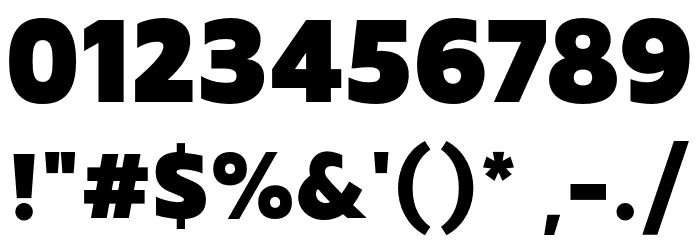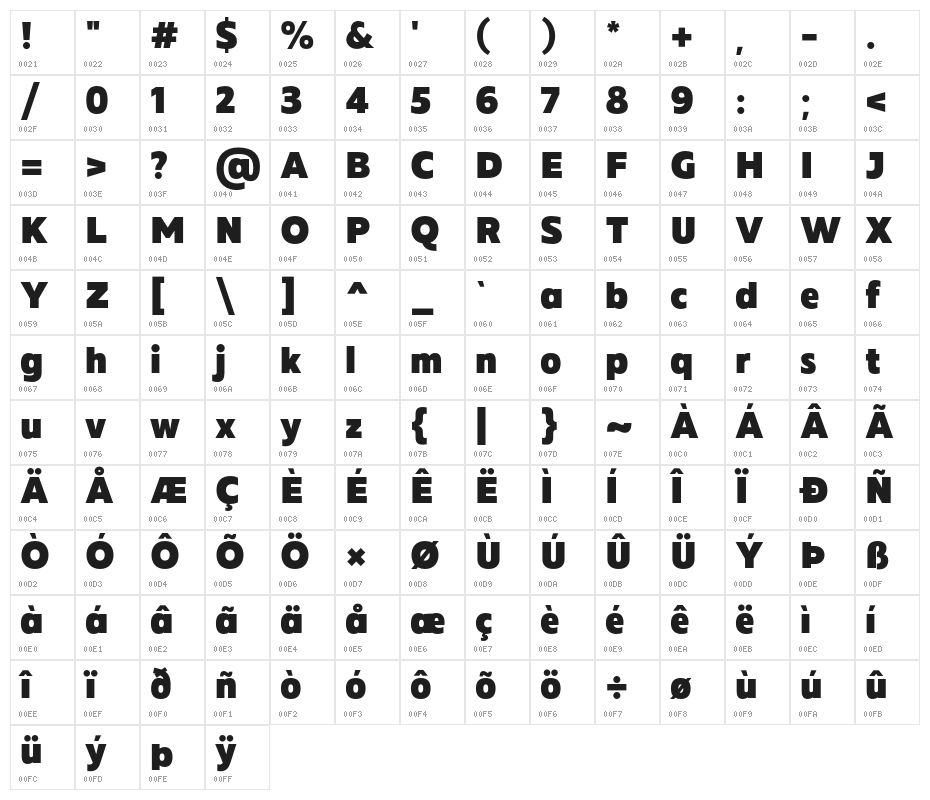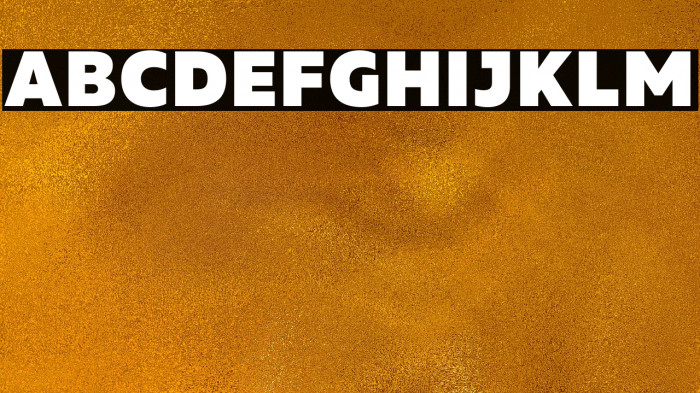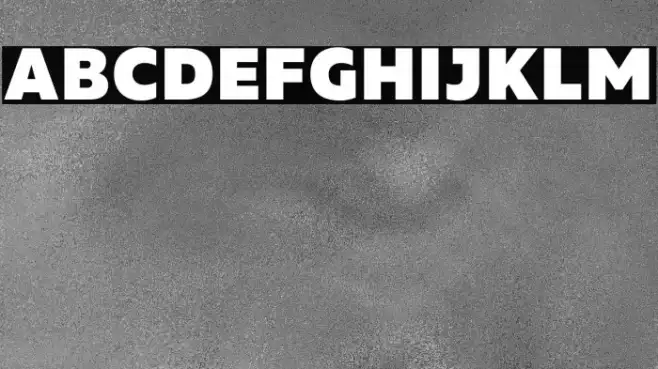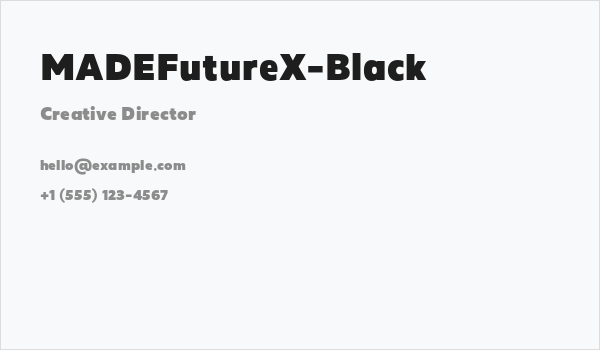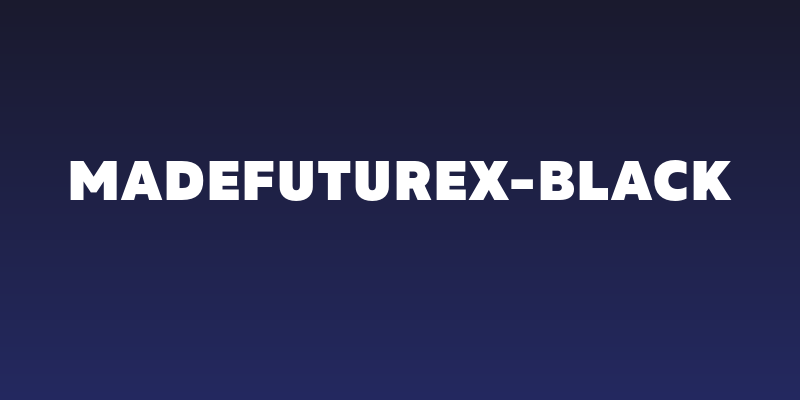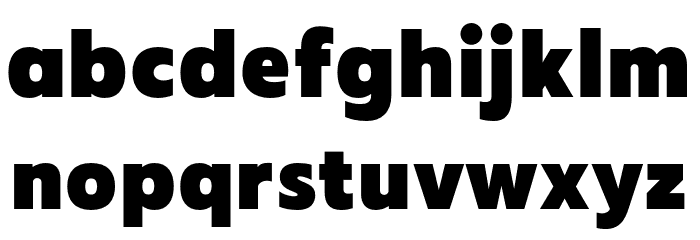
MADEFutureX-Black Font
MADEFutureX-Black Description
This font features bold, geometric letterforms with a strong presence, ideal for making a statement. The uppercase and lowercase letters are designed with uniform stroke widths, contributing to a clean and modern aesthetic. The numerals and special characters maintain the same boldness, ensuring consistency across all text elements. The font's simplicity and clarity make it suitable for a variety of design applications, from digital to print media. Its robust structure and lack of serifs give it a contemporary feel, while the balanced proportions ensure readability.
| Proposed Projects | Ideal for branding, headlines, posters, and digital media where a strong visual impact is needed. |